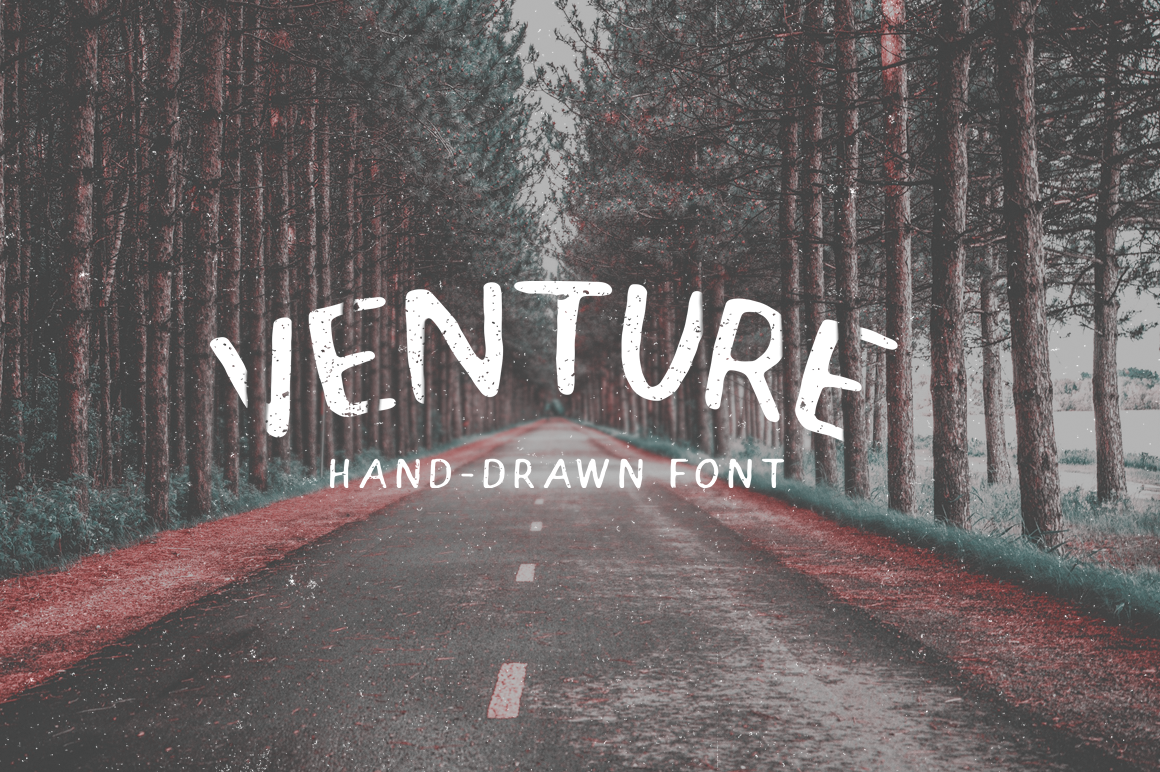
Venture - Hand-Drawn Font
One Font Weight
Caps Only
Venture is a hand drawn sans serif font; first drawn out by hand on paper using a PC 3M Posca Paint Marker, followed by digital refinements and testing. If you're looking for a vintage/retro font, whether it be for a logo, advertising, or simply for personal use, Venture is the one for you! (See example images)